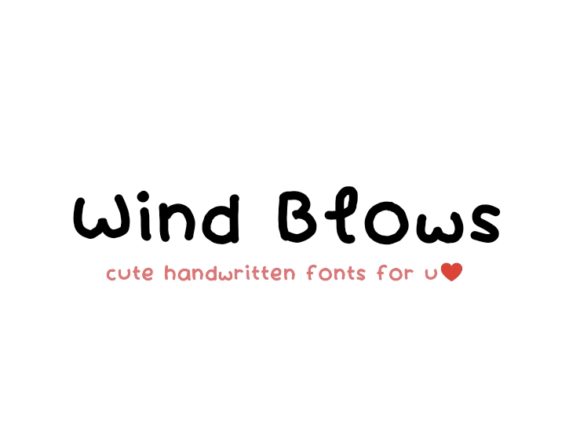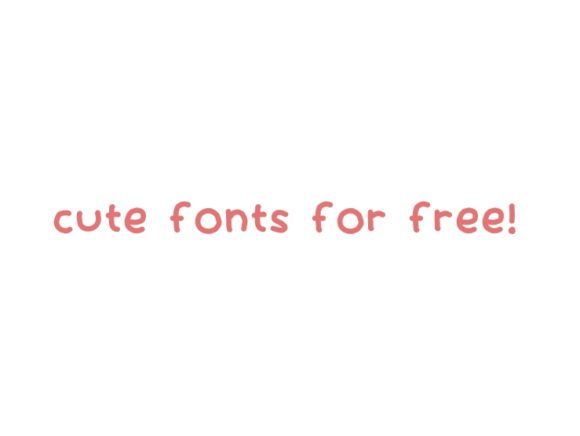
HomeScript FontsWind Blows Font Script Fonts Wind Blows Font FacebookXPinterestWhatsApp Wind Blows Font Poster 2 About Wind Blows Font Wind Blows is a cute and whimsical handwritten font that will put a personal spin on any design idea! DOWNLOAD ON CREATIVE FABRICAThis font is sold and delivered by Creative Fabrica. Font Canyon may earn a commission if you buy through this link. People also explored Kathopis Font Rosaline Font Mercury Font Pridaem Cooper Blackcat Font Intoxicating Font The Homework Font Directions Font Honeymoon Font 292 0 TagsWind Blows Font Previous articleGrand Quentin Duo FontNext articleQwerty Ability Font LEAVE A REPLY Cancel reply Comment: Please enter your comment! Name:* Please enter your name here Email:* You have entered an incorrect email address! Please enter your email address here Website: Save my name, email, and website in this browser for the next time I comment. Personal Use Free Waverly Date Personal Use Free Read more about this font Bonhomie Personal Use Free Read more about this font Super Discount Personal Use Free Read more about this font Gdynia Personal Use Free Read more about this font BLOG To increase your work productivity, choose the most readable fonts. In today's fast-paced work environment, where digital communication and information consumption are integral to our daily routines, the choice of fonts can significantly impact... Modern Sans-Serif Fonts That Brands Love in 2025 Free vs Paid Fonts: Why Investing in Premium Fonts Is Worth It Where to Buy American Fonts Online in 2024